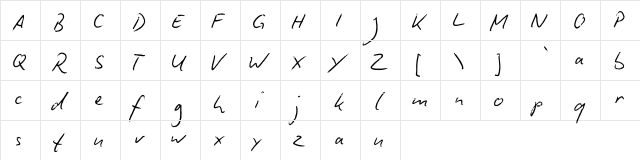
Biro Script
| Style | Script |
| Foundry | Ingo Zimmermann |
| Designer | Ingo Zimmermann |
Design Context for Biro Typeface
Biro brings a calligraphic fluidity to the page — its connecting strokes and expressive curves give it an unmistakably human quality.
Font Pairing: Combine Biro with a simple geometric sans for maximum contrast — the tension between flowing curves and clean structure is a classic typographic pairing.
Pro Tip: Use Biro for short runs of text — names, titles, or taglines. Extended body copy in script faces tires the eye quickly.